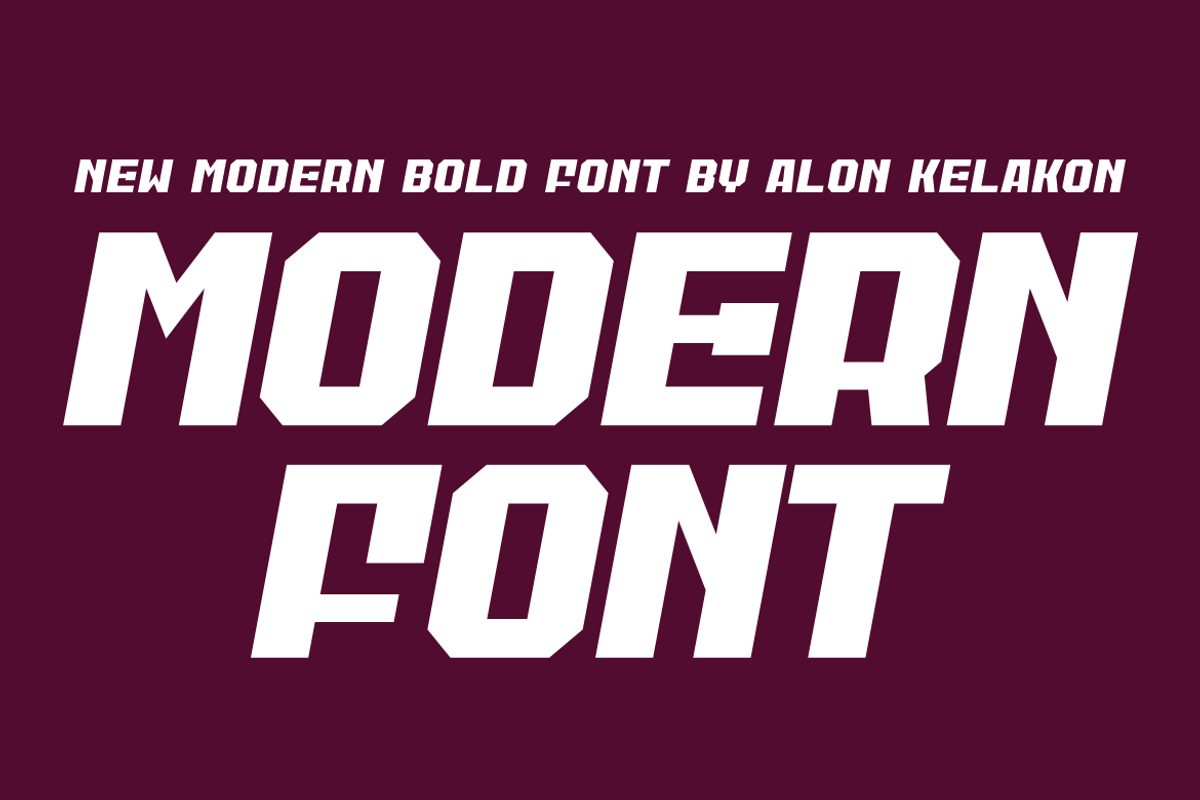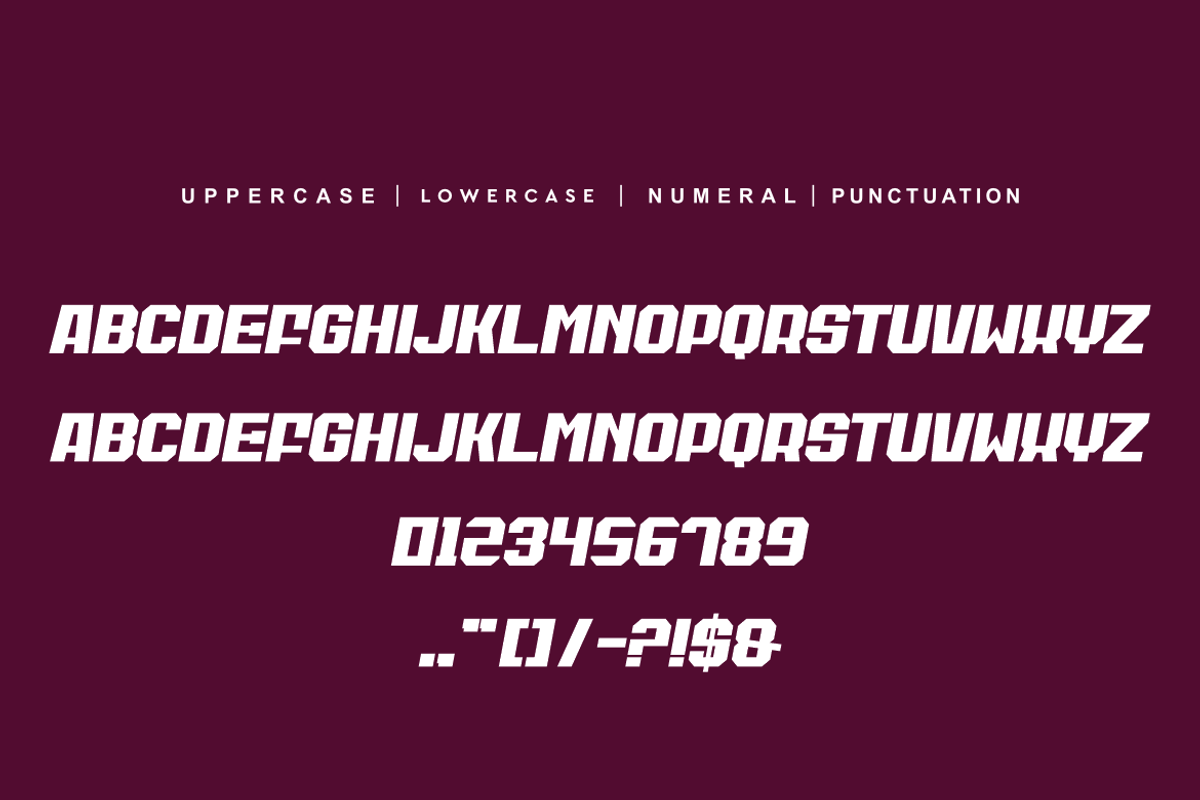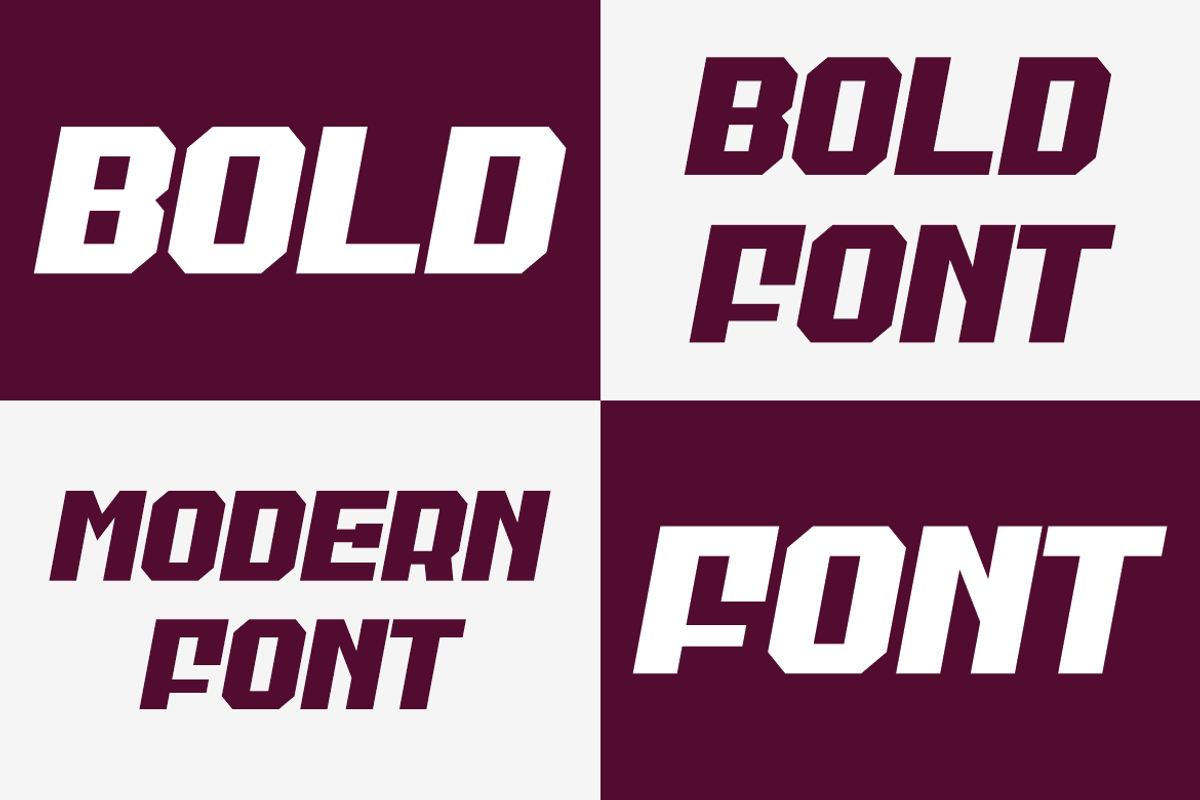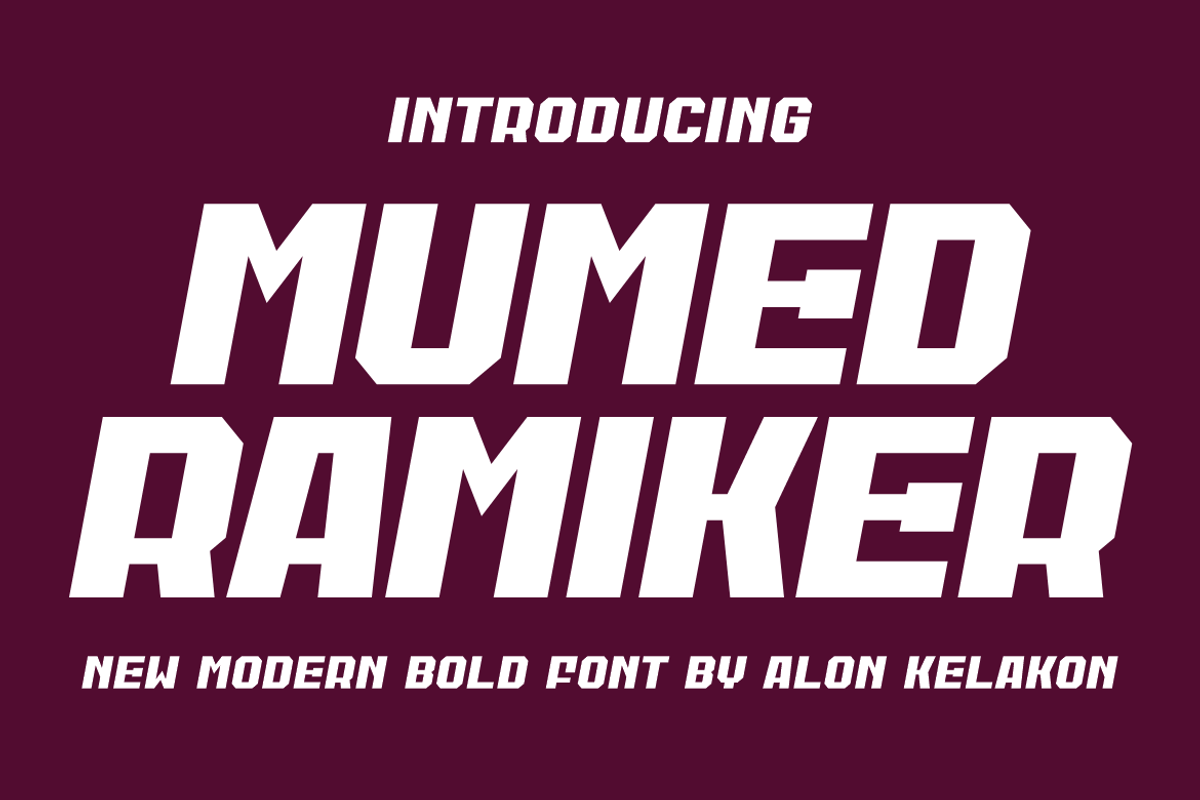
Mumed Ramiker
Mumed Ramiker Font is unique . Ready to use for your design like labeling, clothing, movie sceen, poster, movie title, gigs, album covers, logos, and much more.